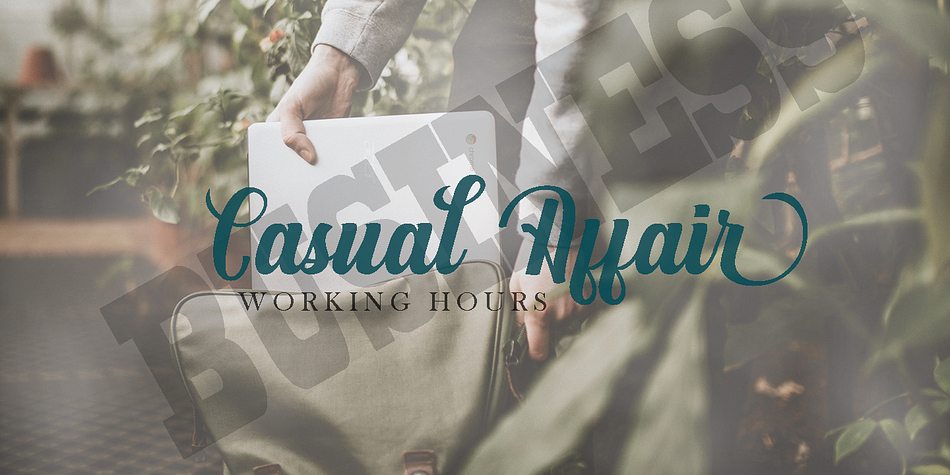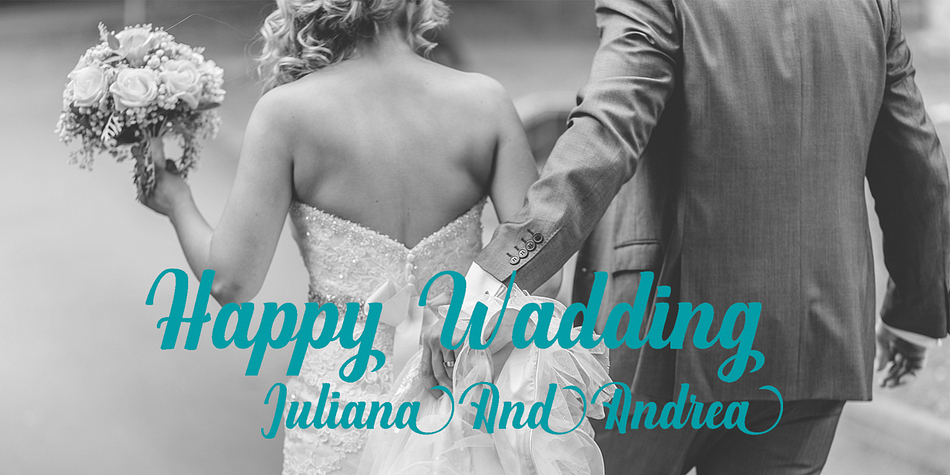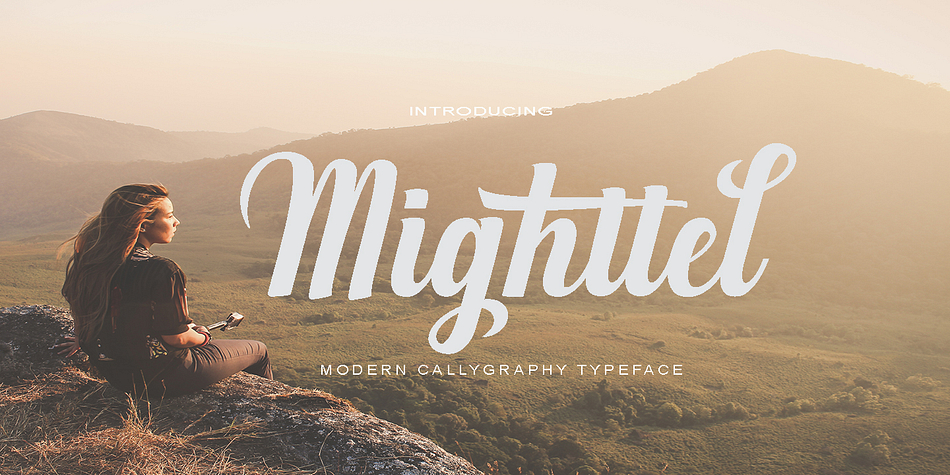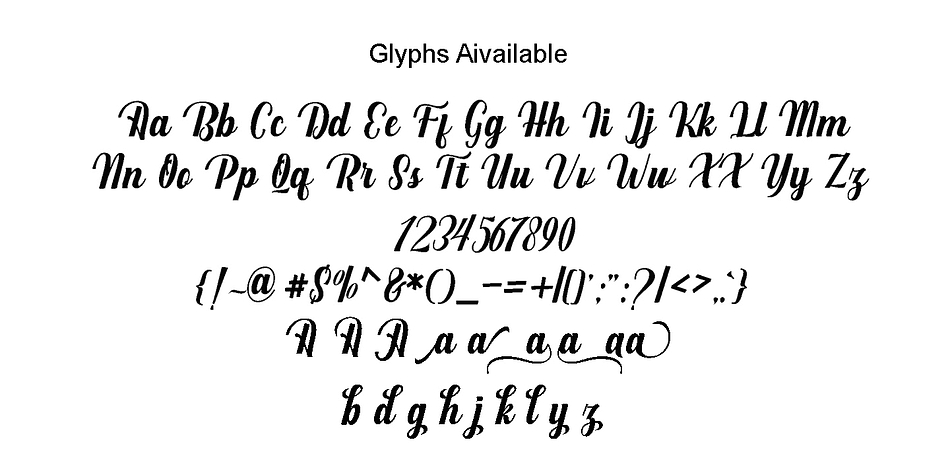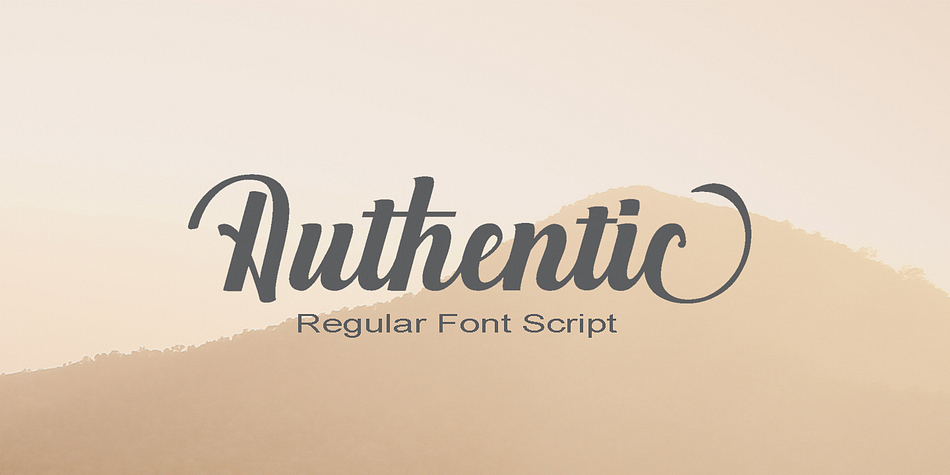
Mighttel
Mighttel is a script font published by pollem.Co.
Mighttel is a handwritten typeface that has natural characteristics and is perfect for invitations, signatures, blogs, social media, business cards, product brands.
Mighttel has elegant character sets, namely stylistic standard and stylistic alternates.
Mighttel can be used for various projects like titles, logos, wedding invitations, t-shirts, letterheads, nameplate, labels, news, posters, and badges. The OpenType features can be accessed by using OpenType smart programs such as Adobe Photoshop, Adobe Illustrator, Adobe Indesign, Corel Draw, and Microsoft Office.